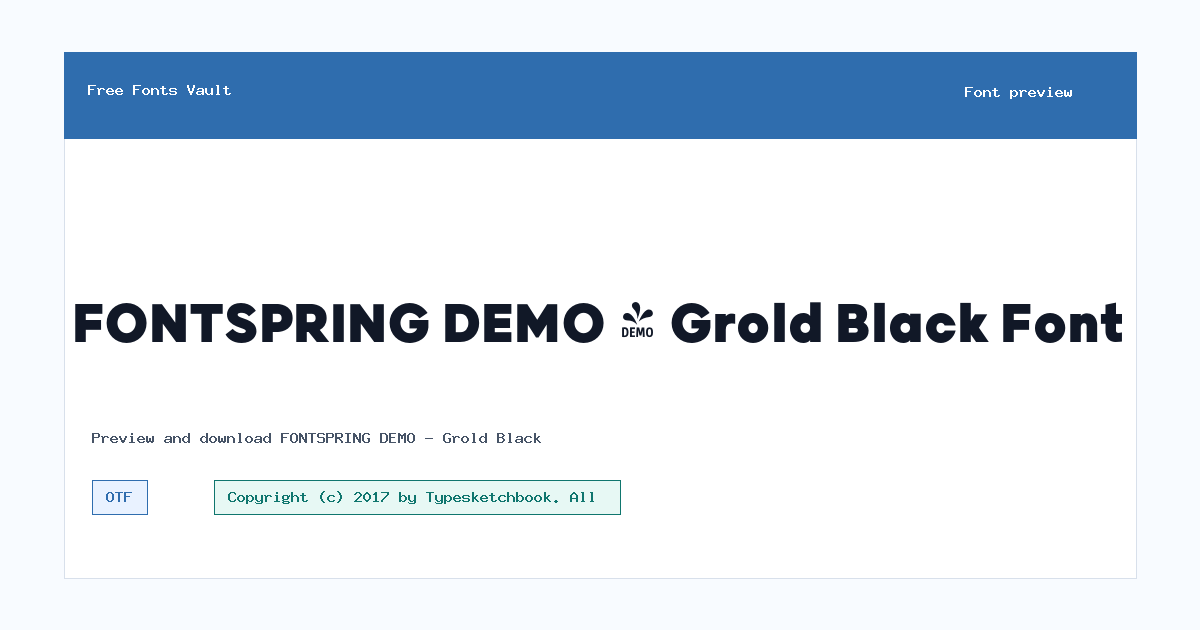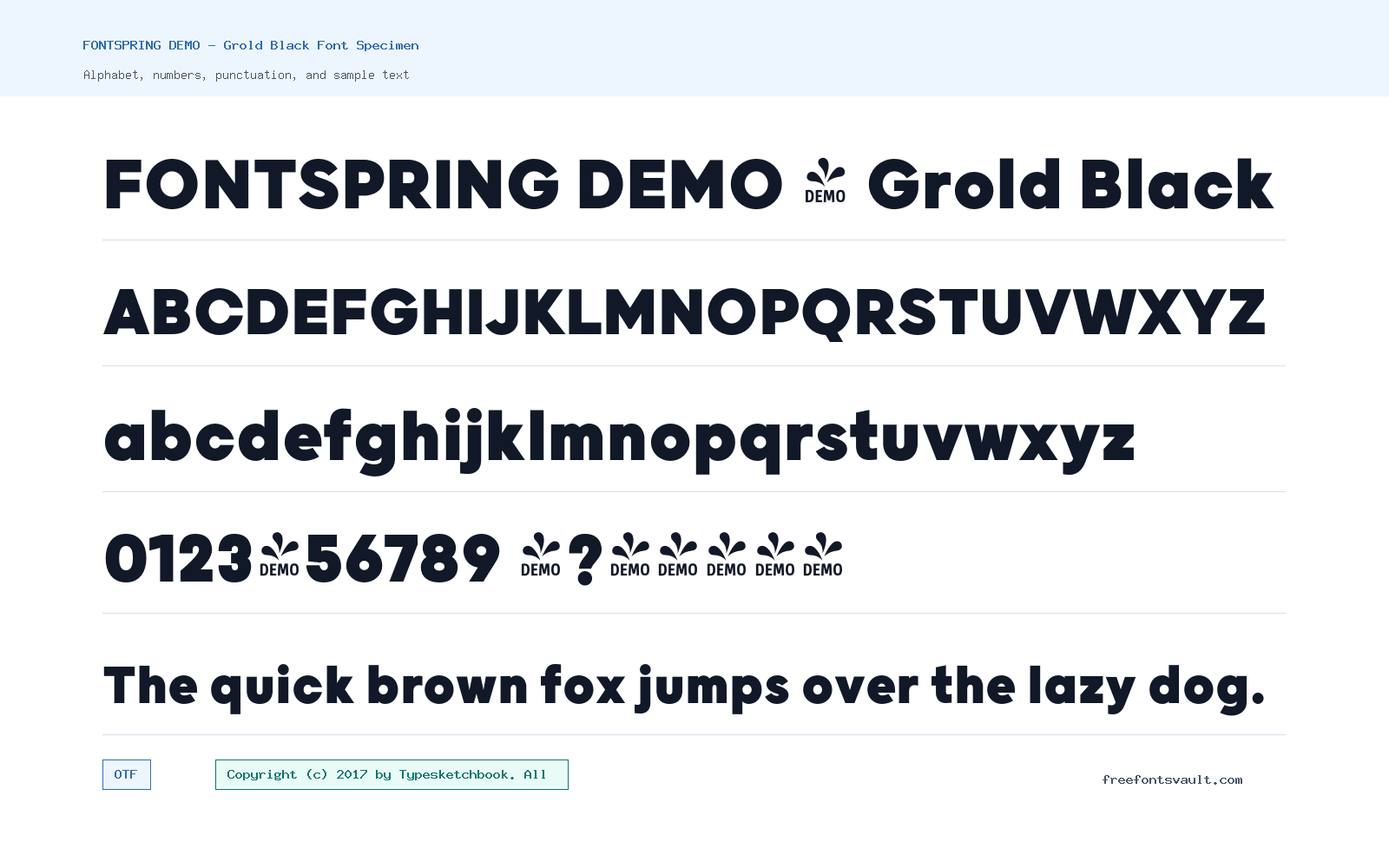
FONTSPRING DEMO - Grold Black
FONTSPRING DEMO – Grold Black font.
FONTSPRING DEMO – Grold Black is a heavy 900-weight OTF font file. It is best approached as a bold display face for short text, where size, spacing, and license limits matter before you download or use it.
About FONTSPRING DEMO – Grold Black
Grold Black is the black-weight cut in this font listing, with a font weight marked as 900 and a normal style. That makes it a better fit for large, attention-focused text than for long reading. Try it in the preview with a few real words, not only the alphabet. Heavy fonts can look strong in a headline but feel crowded when the letters sit too close together, especially in all caps or narrow spaces.
• Black 900-weight style for strong headlines and large display text.
• Large headings, poster titles, thumbnails, banners, and short promotional text where a heavy weight is useful.
The designer is listed as Chatnarong Jingsuphatada, with Typesketchbook listed as the foundry. The designer website is listed as http://www.superstorefont.com.
Use Grold Black for short, high-impact text and give the letters enough room. Start with title case or a few words in uppercase, then adjust tracking if the preview feels tight. Avoid long paragraphs, small captions, and dense menu text, because a 900-weight style can lose clarity at smaller sizes. For web use, check loading, fallback fonts, and format support before using it on a live site.
What weight is this font?
The listed weight is 900, which is commonly used for a black or very heavy style.
Who designed Grold Black?
The designer is listed as Chatnarong Jingsuphatada. Typesketchbook is listed as the foundry.